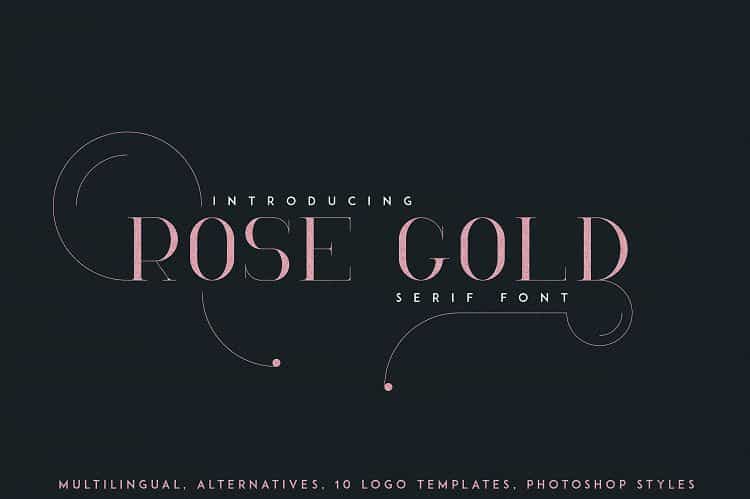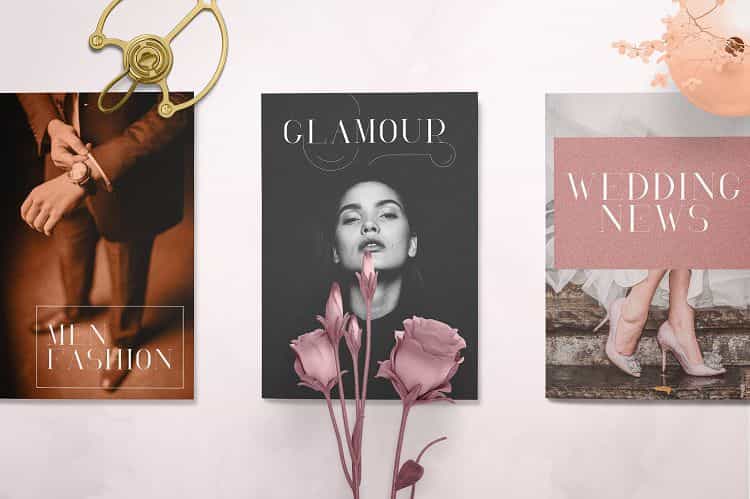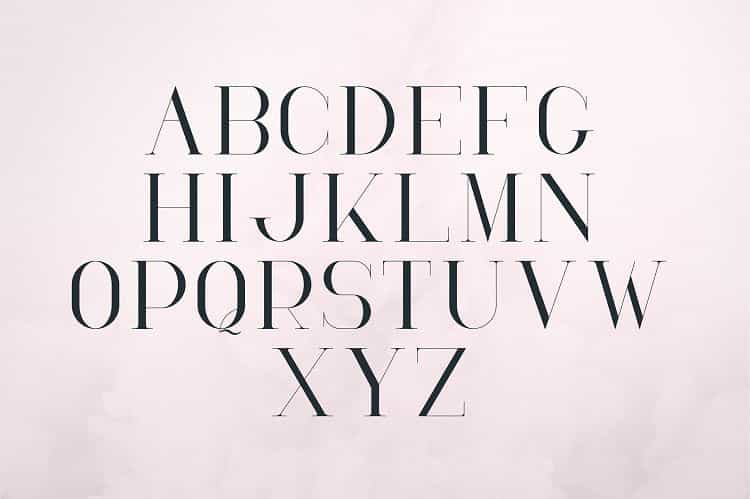
Discover RoseGold Serif Font, part of the Serif Display collection—a versatile and unique font perfect for adding a personal touch to your projects. Download it for free and enjoy crafting designs with style, from invitations to social media posts. This font is available exclusively for personal use, giving you the freedom to create without limits. Unlock your creativity with RoseGold Serif Font today!
Introducing RoseGold Font. The RoseGold Serif Font is a gorgeously created serif font with 7 substitutes of traditional glyphs for each letter. It is highly adaptable font that comes in handy whether done in large or small characters. ClipArt Prince‘s possible applications are so diverse: branding projects, design for garments, labeling products, wedding invites, headings in magazines, or beautiful typography with any back picture.